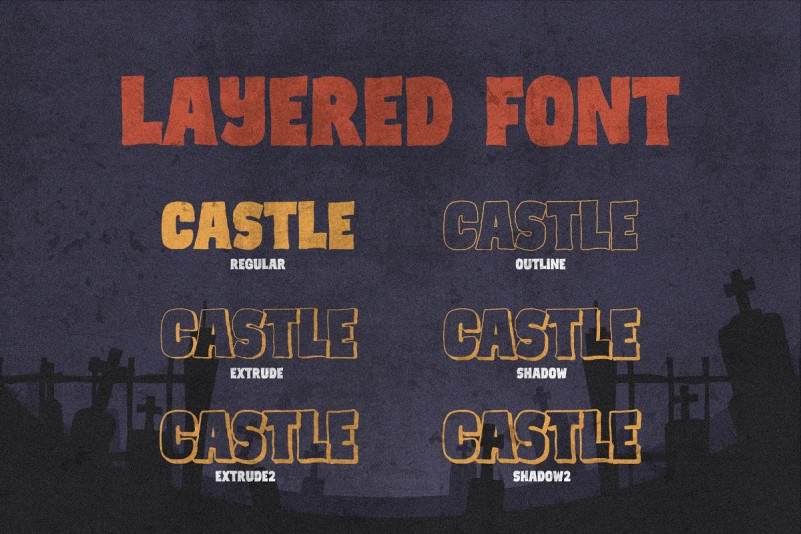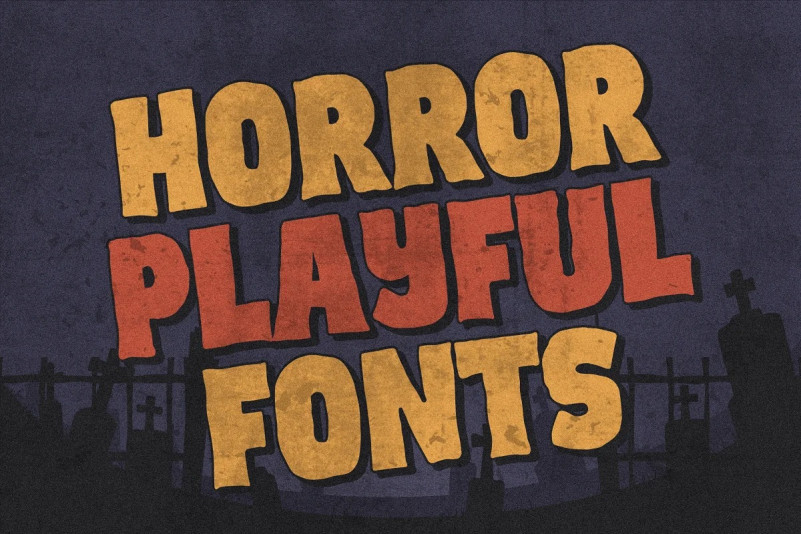
Castlesign Rough Font
Castlesign is a font family designed roughly because it wants to give a natural impression. This font is available in 6 different styles and can be used simultaneously.